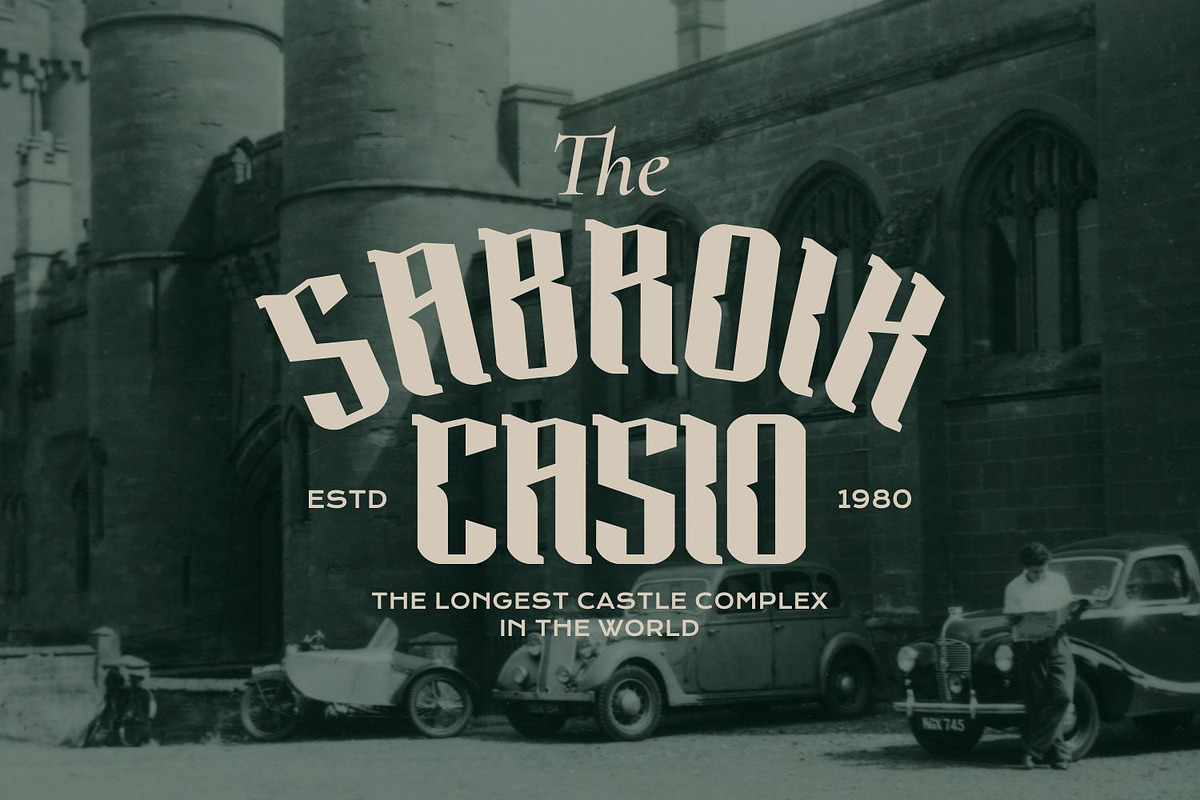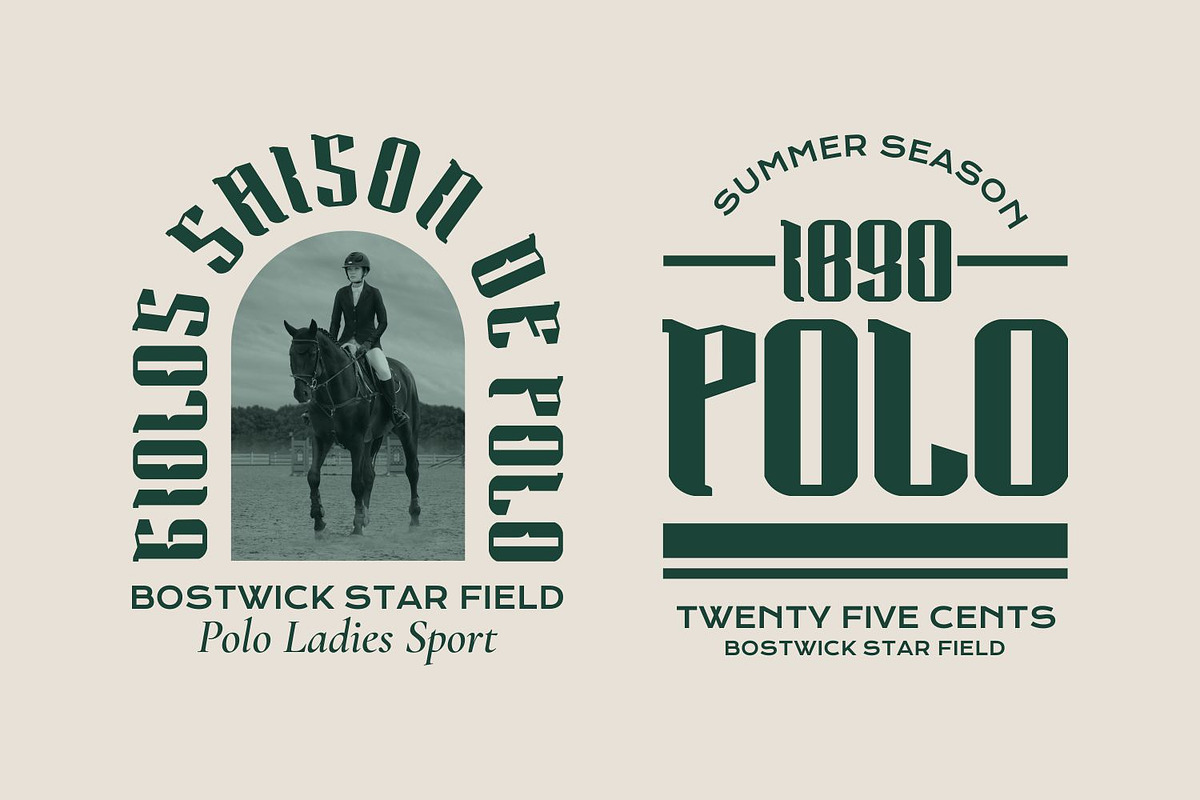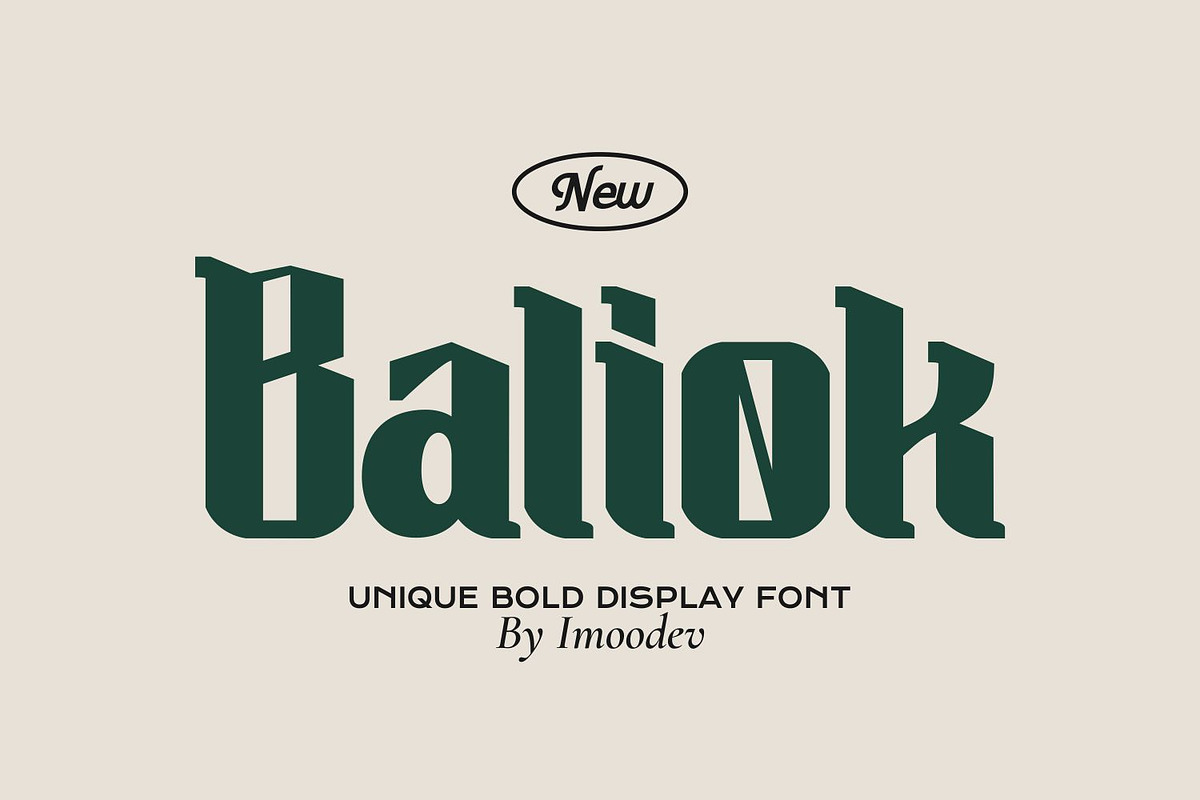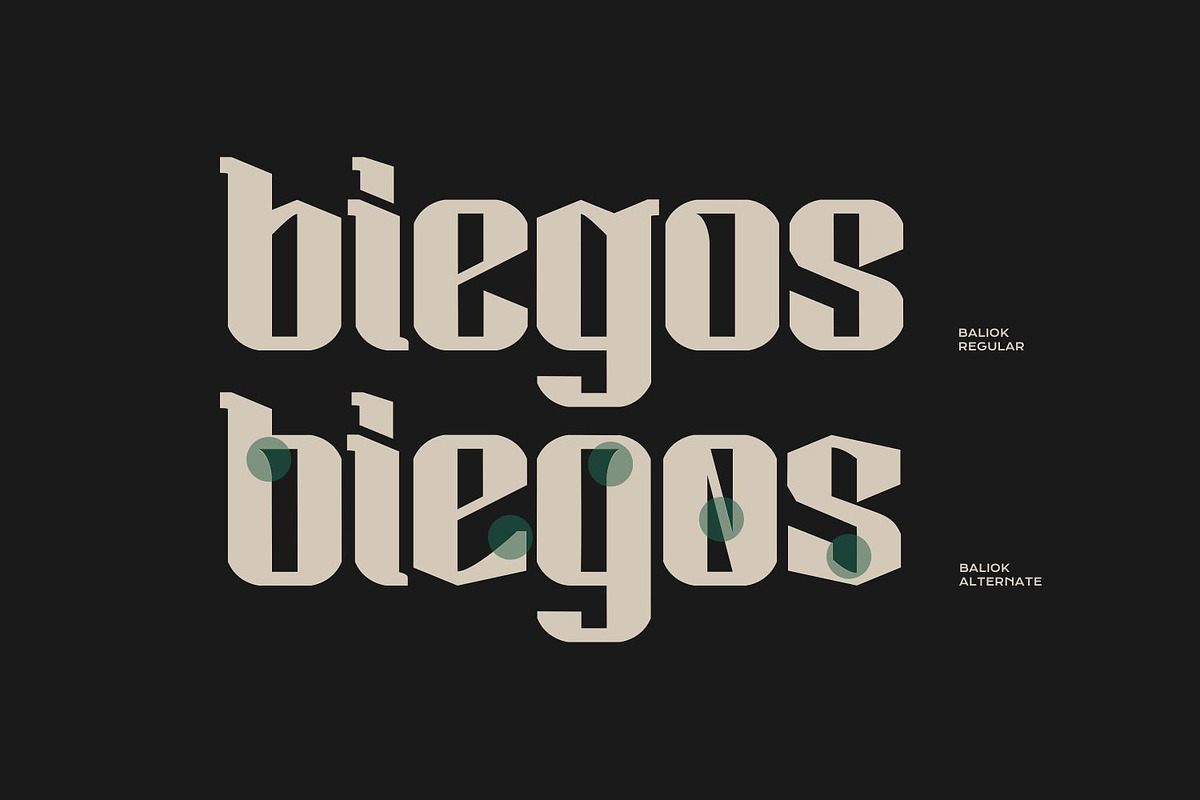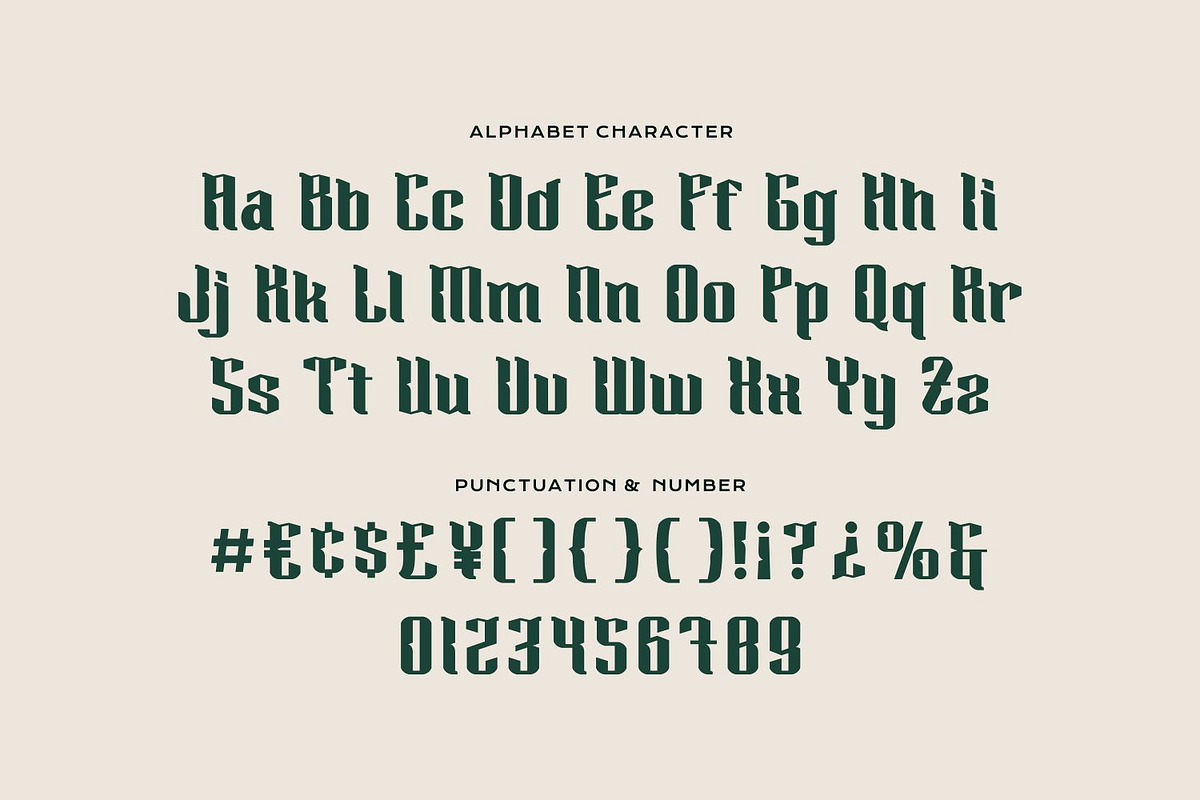
Baliok - Retro Western Typeface
Baliok is a charismatic and stylish retro western typeface, its strong, condensed letterforms and nostalgic character, this font is a perfect choice for making a memorable statement.
It harks back to an era of masterful craftsmanship and bold design, making it ideal for powerful headlines, logo type, apparel design, posters, heritage, authority, and packaging that require a classic yet contemporary aesthetic. Whether you're designing for sports team with a rich history, or vintage themed design.
- Uppercase and Lowecase Characters.
- Numerals and Punctuations.
- Alternates and Ligatures.
- Multilingual Support.